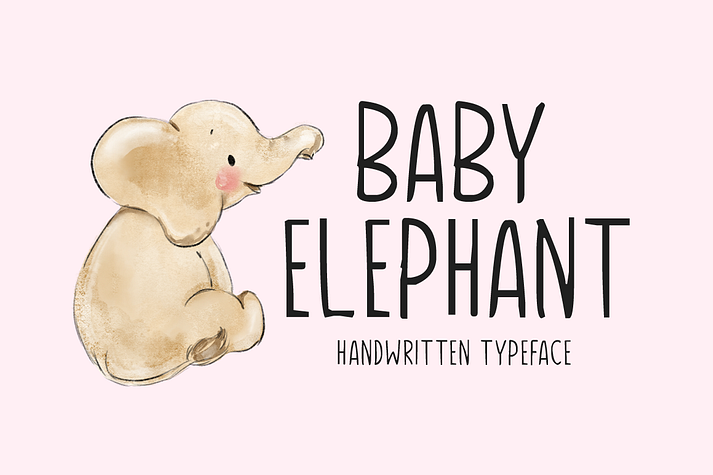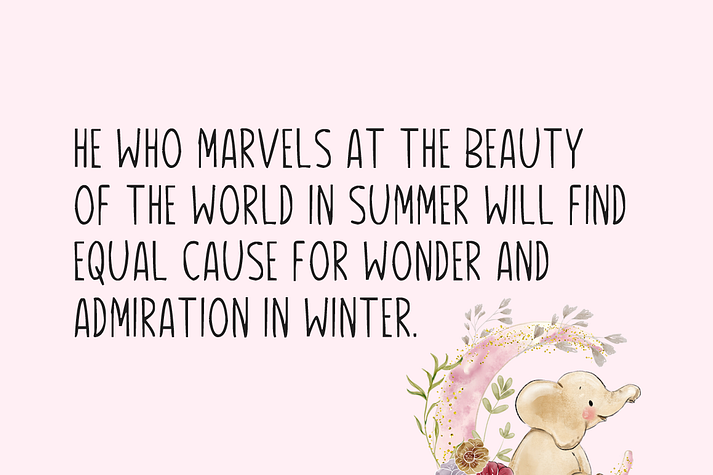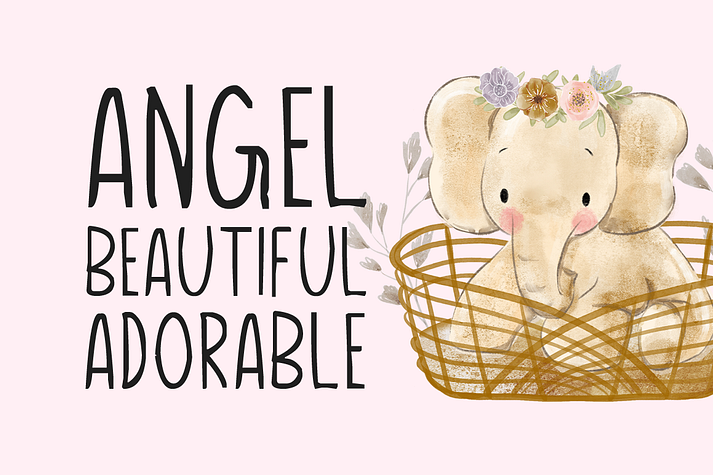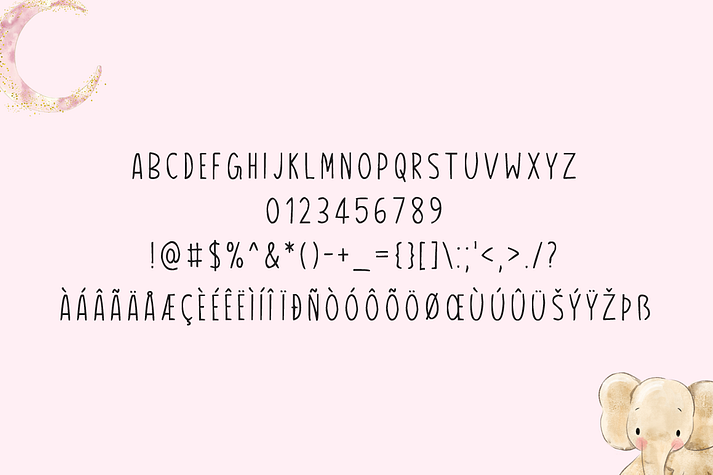
Baby Elephant
Baby Elephant is a font family published by Seemly Fonts.
Introducing Baby Elephant!
Baby Elephant is a brand new handwritten font. Baby Elephant is perfectly suited for stationery, logos, t-shirt, paper, print design, website header, photo frame, flyer, music cover, poster, image slider, and much more.
Includes a range of multilingual support